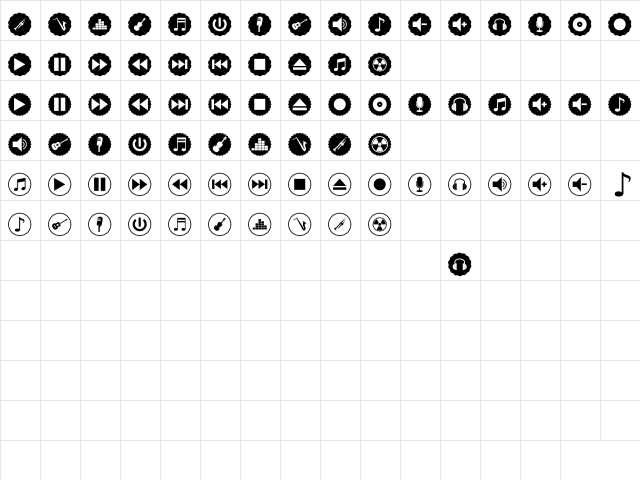
font bottons music pro Regular
Design Context for font bottons music pro Typeface
font bottons music pro is a composed and adaptable typeface that performs quietly and consistently across a wide range of design contexts.